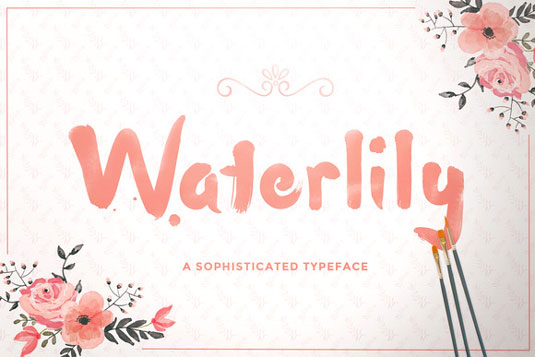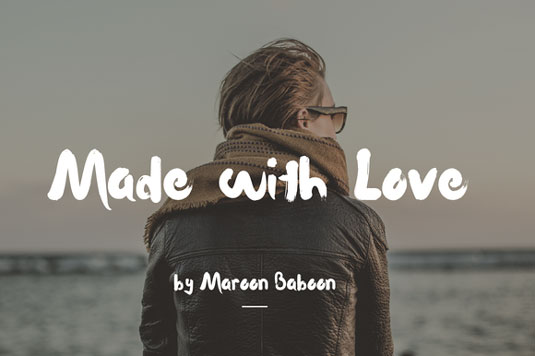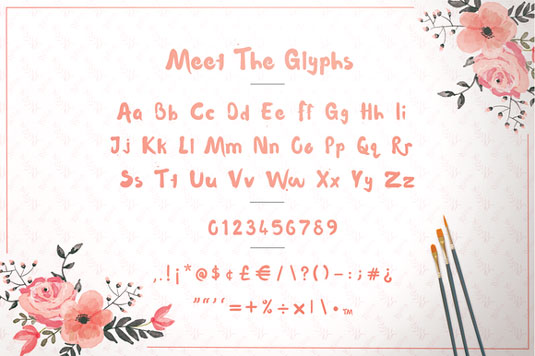
Font of the day: Waterlily
Waterlily from Maroon Baboon
A new handwritten typeface for 2015, Waterlily was created by the team at UK-based graphic design studio The Hungry JPEG. Including over 80 different hand drawn characters for a range of languages and dialects, Waterlily is available free for personal and commercial use.